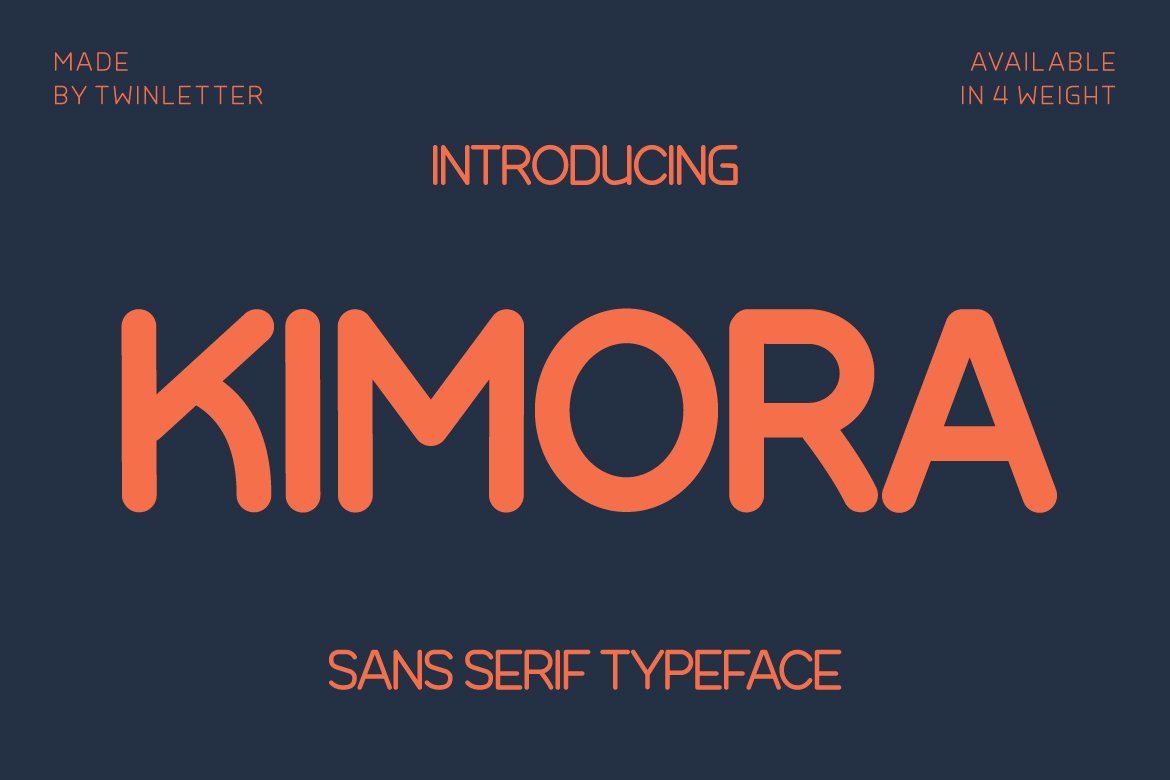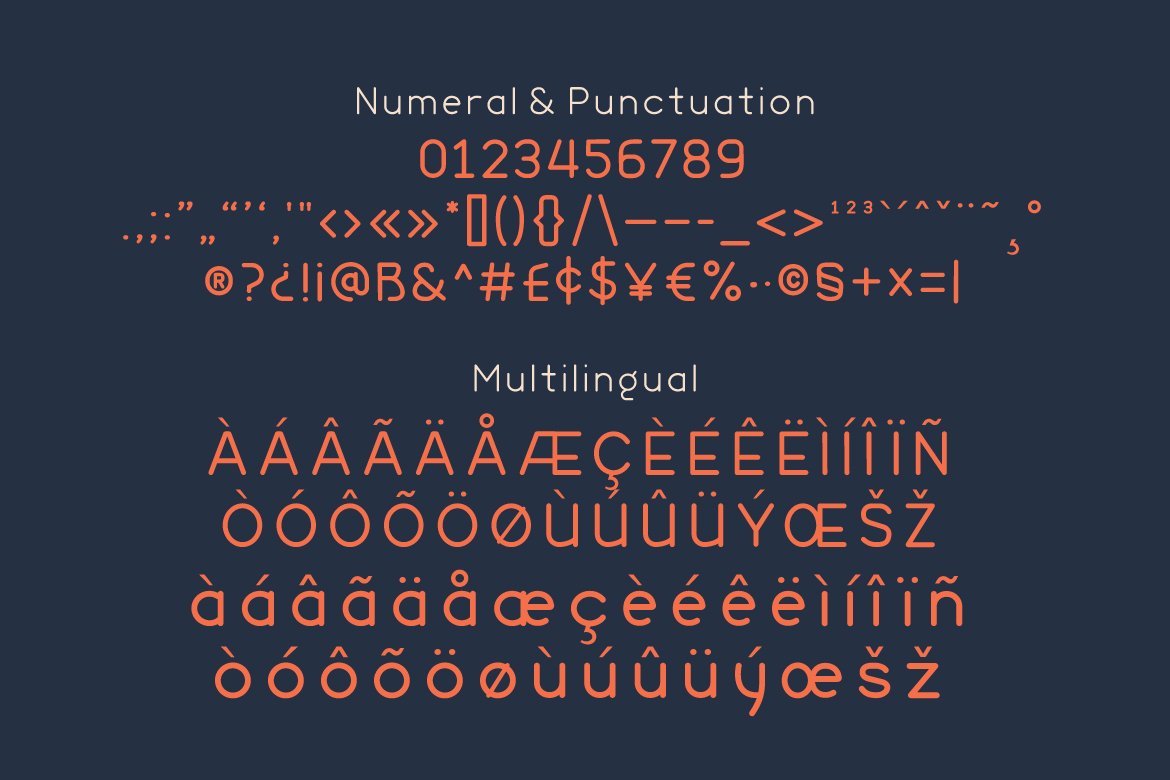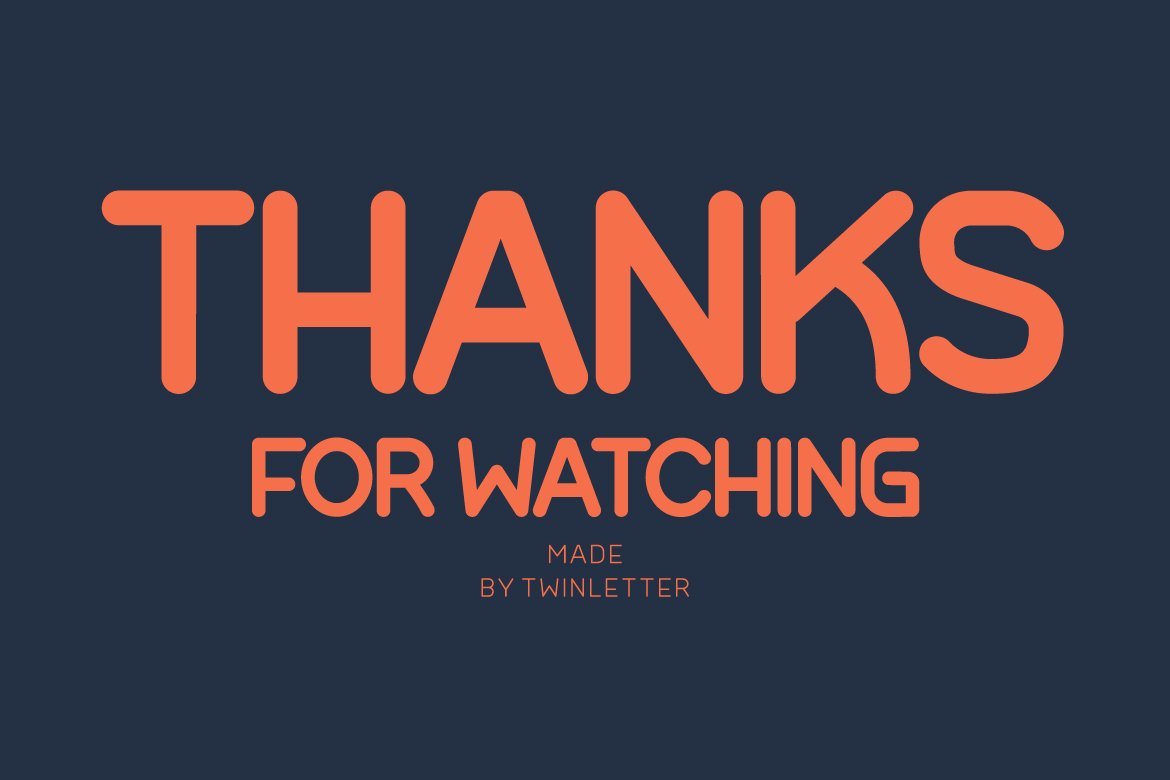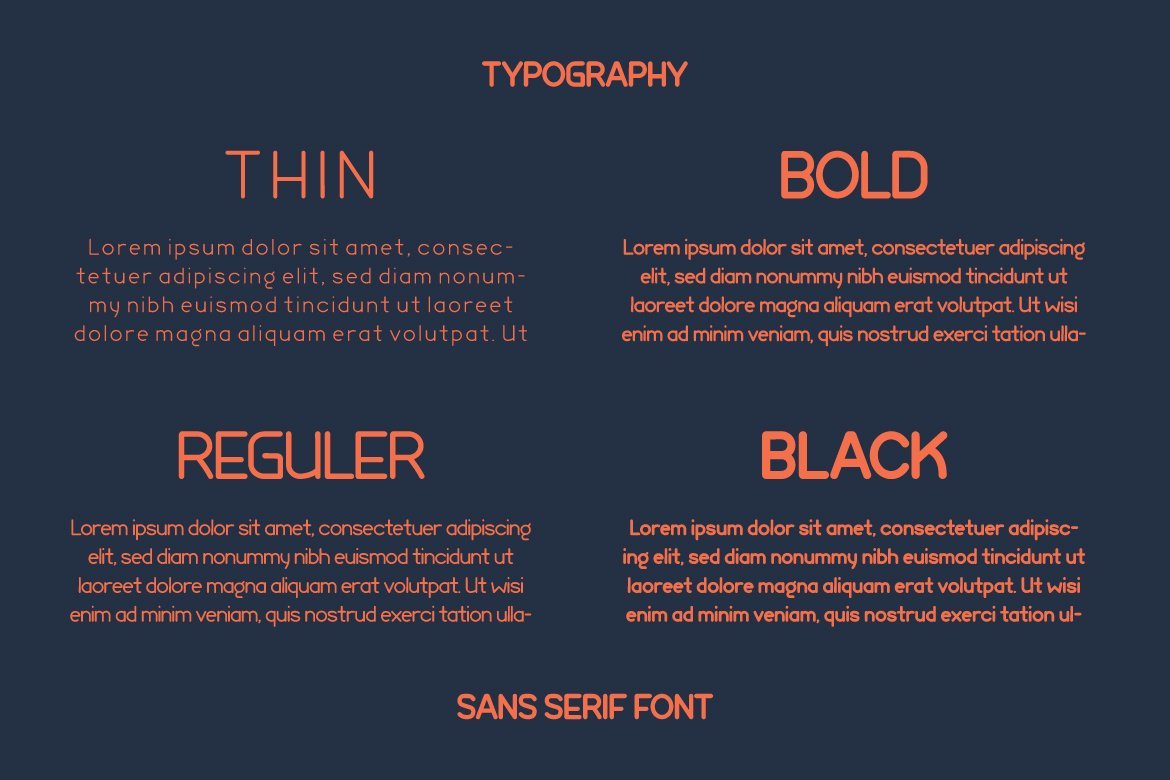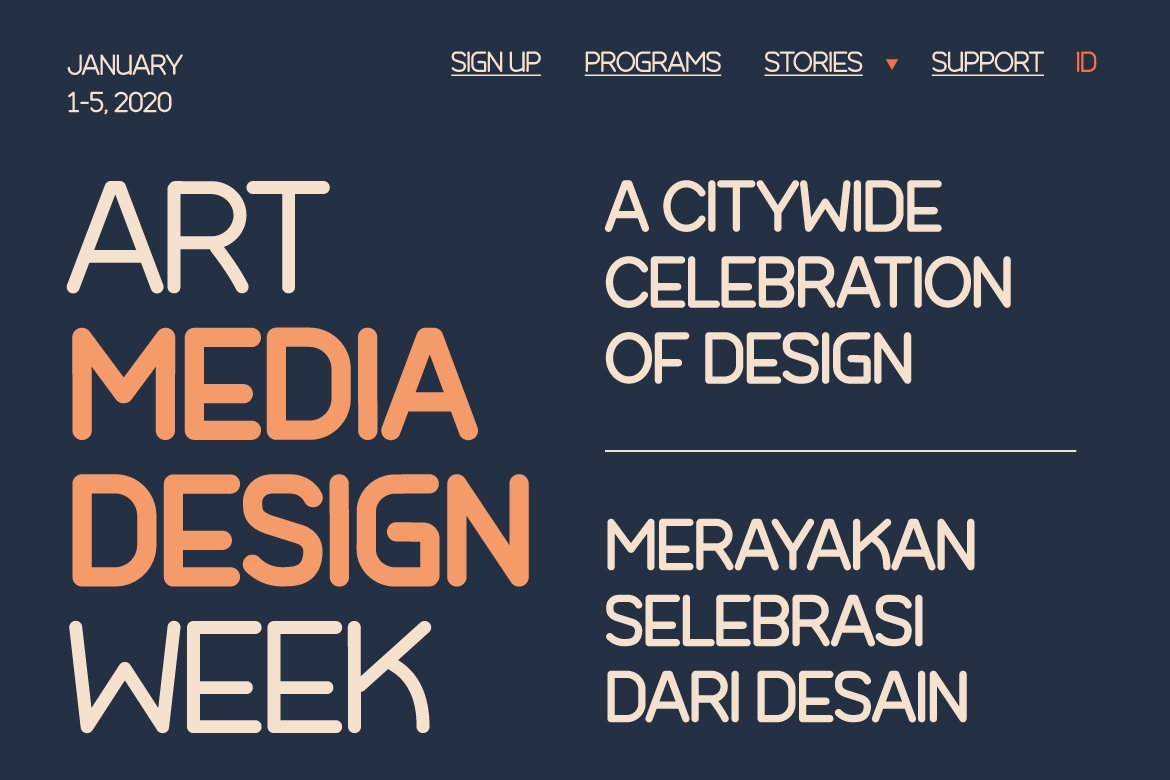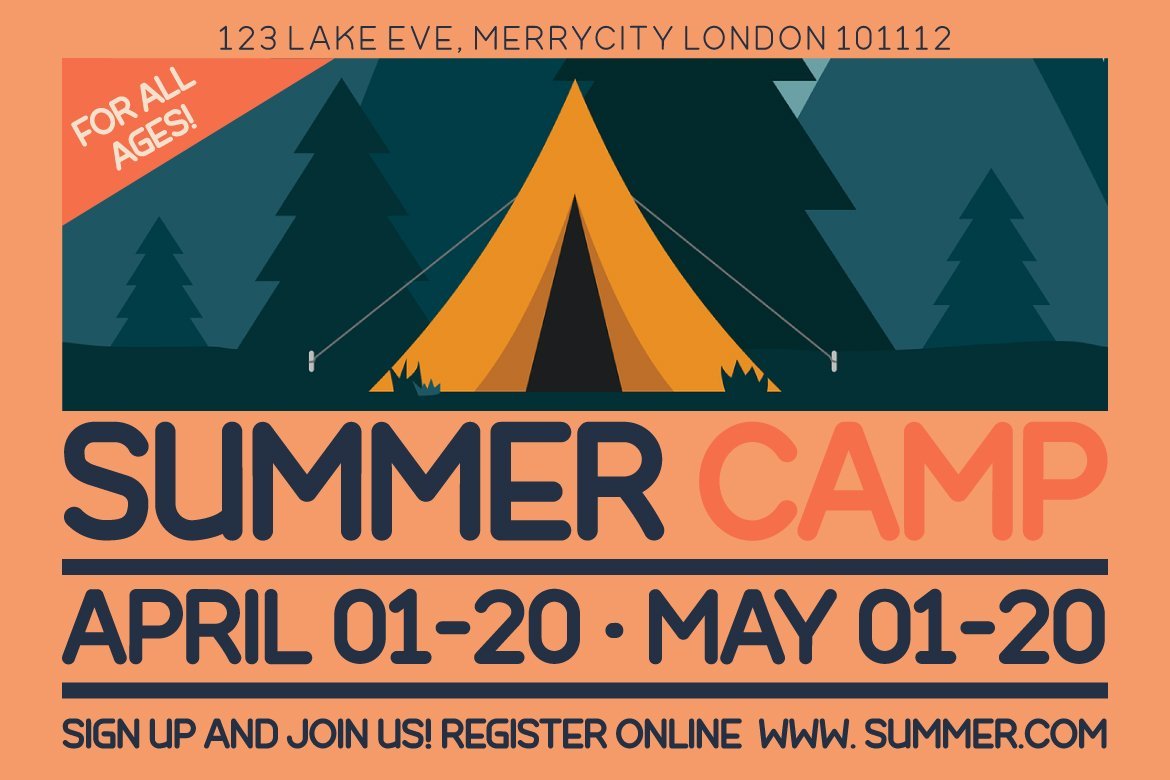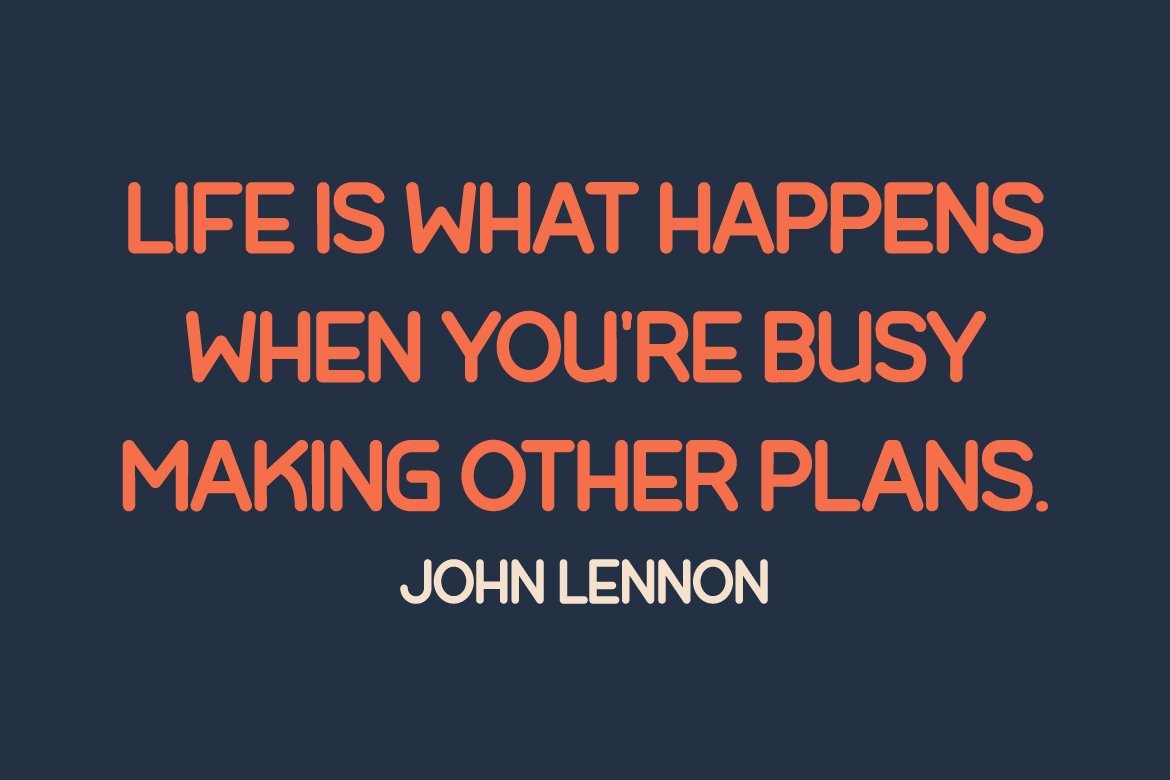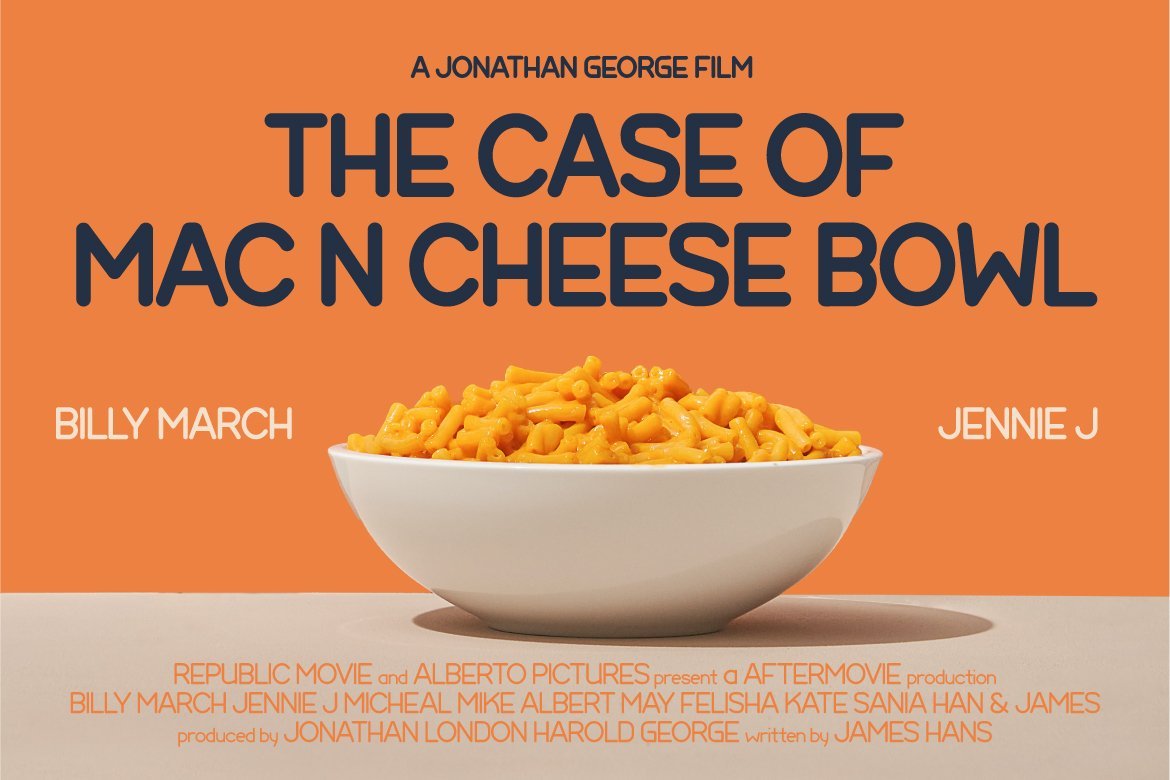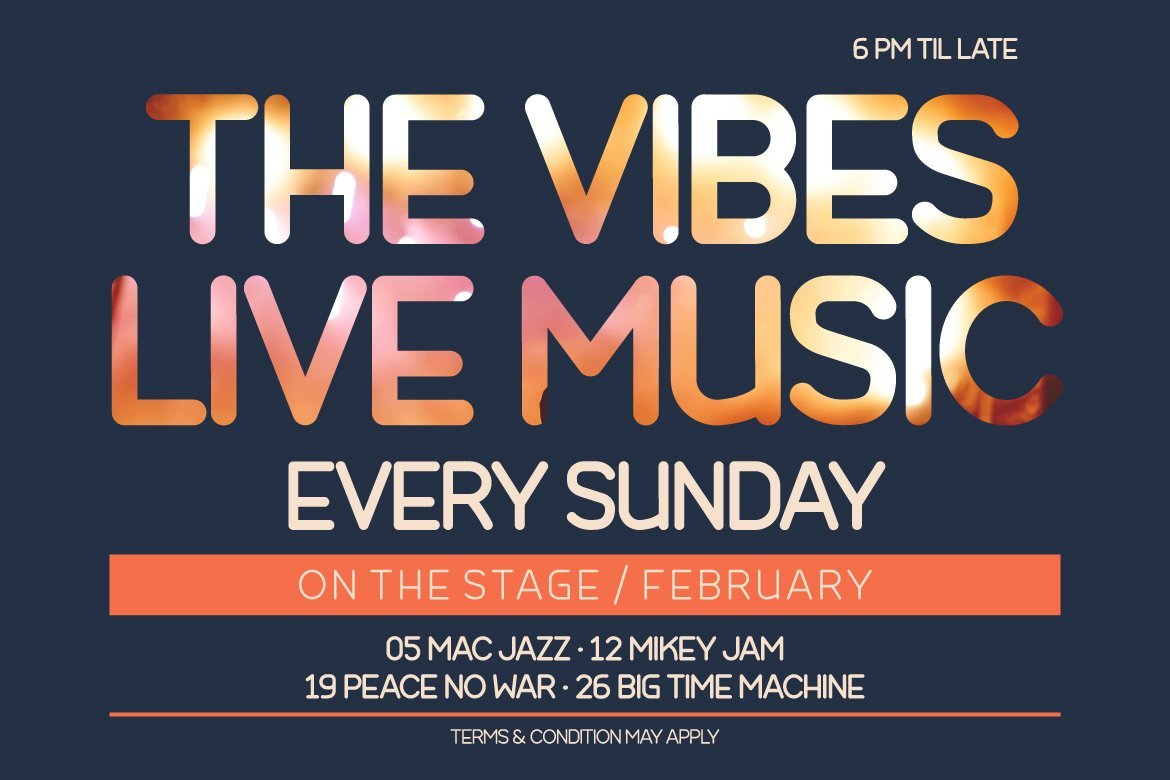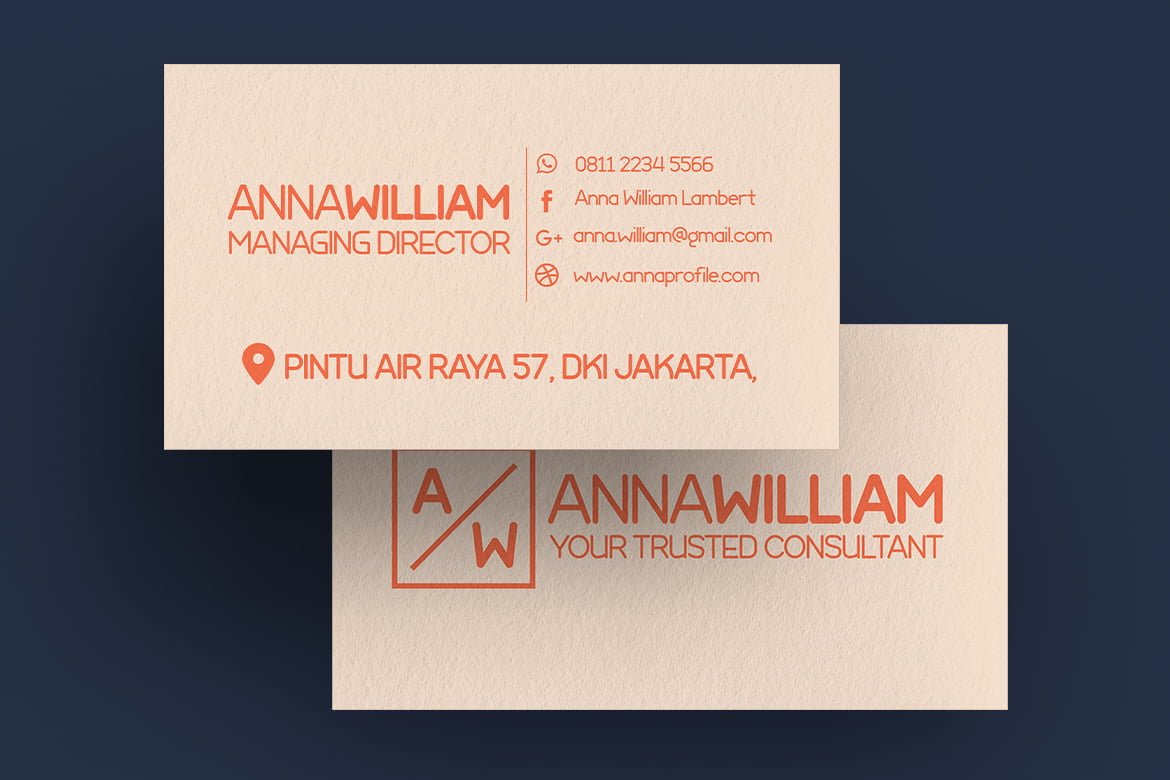
Kimora
Kimora is a sanserif typeface with a relaxed yet elegant tone. It’s a versatile font that can be used in both formal and informal settings.
Because this typeface is comfortable to read, every message you send will be readily read and comprehended.
• Fonts include multilingual support for; Afrikaans, Albanian, Croatian, Czech, Danish, Dutch, English, Estonian, Finnish, French, German, Hungarian, Italian, Norwegian, Polish, Portuguese, Slovak, Slovenian, Spanish, Swedish